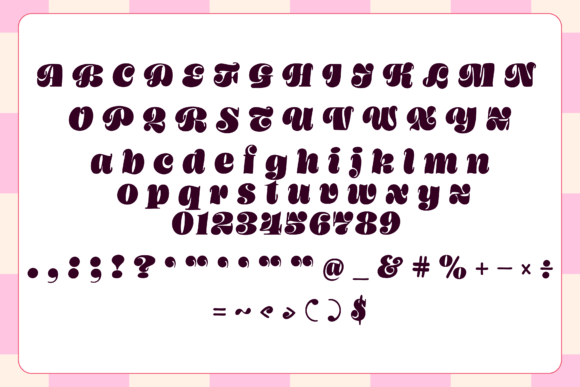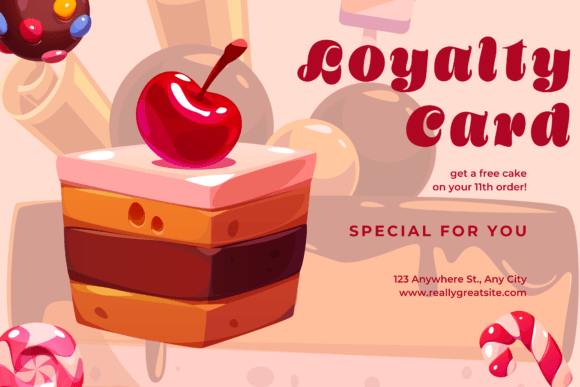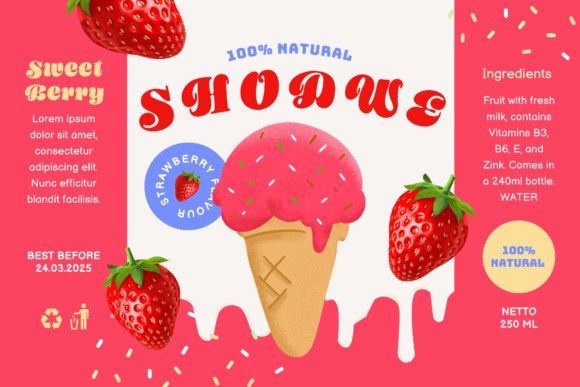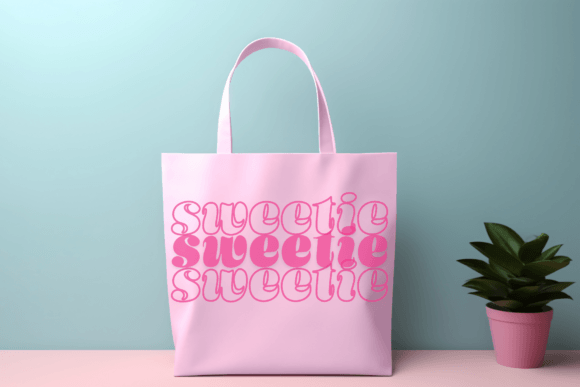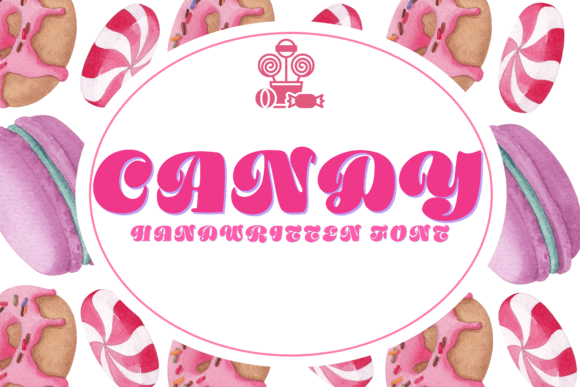
Candy Font: The Sweetest Addition to Your Design Collection
Are you a designer or crafter looking for a font that can add a touch of sweetness and friendliness to your projects? Look no further than Candy Font! This beautiful, handwritten font is perfect for a wide range of designs, from invitations and greeting cards to branding and packaging. In this article, we’ll take a closer look at Candy Font, its unique features, and how you can use it to take your designs to the next level.
What is Candy Font?
Candy Font is a sweet and friendly handwritten font that is sure to capture the hearts of designers and crafters alike. Its natural and unique style makes it incredibly fitting to a large pool of designs, from whimsical and playful to elegant and sophisticated. The font’s versatility is limitless, and the only limit is your imagination!
Unique Features of Candy Font
So, what makes Candy Font so special? Here are just a few of its unique features:
- Handwritten style: Candy Font has a beautiful, handwritten style that gives it a personal and friendly touch.
- Natural and unique: The font’s natural and unique style makes it perfect for designs that require a touch of whimsy and playfulness.
- Versatile: Candy Font can be used for a wide range of designs, from invitations and greeting cards to branding and packaging.
- Easy to read: Despite its playful style, Candy Font is easy to read and understand, making it perfect for designs that require a clear and concise message.
How to Use Candy Font in Your Designs
Now that we’ve covered the unique features of Candy Font, let’s take a look at how you can use it in your designs. Here are a few ideas to get you started:
- Invitations and greeting cards: Candy Font is perfect for creating beautiful and unique invitations and greeting cards for special occasions like birthdays, weddings, and holidays.
- Branding and packaging: The font’s playful and friendly style makes it perfect for branding and packaging designs that require a touch of whimsy and personality.
- Social media graphics: Candy Font can be used to create eye-catching social media graphics that are sure to grab the attention of your followers.
- Blog and website design: The font’s easy-to-read style makes it perfect for blog and website designs that require a clear and concise message.
Tips for Getting the Most Out of Candy Font
Here are a few tips for getting the most out of Candy Font:
- Experiment with different colors and textures: Candy Font looks great in a variety of colors and textures, so don’t be afraid to experiment and find the perfect combination for your design.
- Use it with other fonts: Candy Font can be paired with other fonts to create a unique and interesting design.
- Play with font sizes and styles: The font’s versatility means that it can be used in a variety of font sizes and styles, from bold and large to delicate and small.
In conclusion, Candy Font is a sweet and friendly handwritten font that is perfect for designers and crafters looking to add a touch of whimsy and personality to their designs. Its natural and unique style makes it incredibly fitting to a large pool of designs, and the only limit is your imagination! With its versatility, ease of use, and unique features, Candy Font is sure to become a favorite in your design collection.